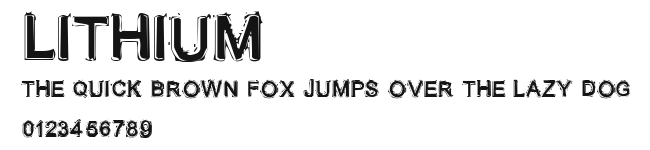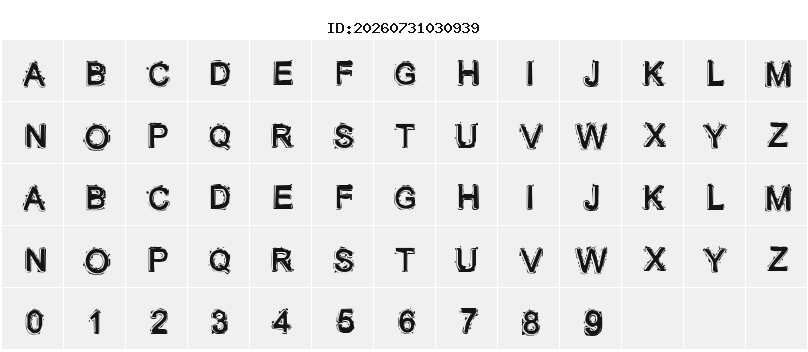
Lithium Preview
• Font Name: Lithium
• Full Font Name: Lithium
About Lithium.ttf
Lithium.ttf is a modern, elegant sans-serif font designed for ultimate readability and visual harmony. Perfect for branding, headlines, web design, and print materials.